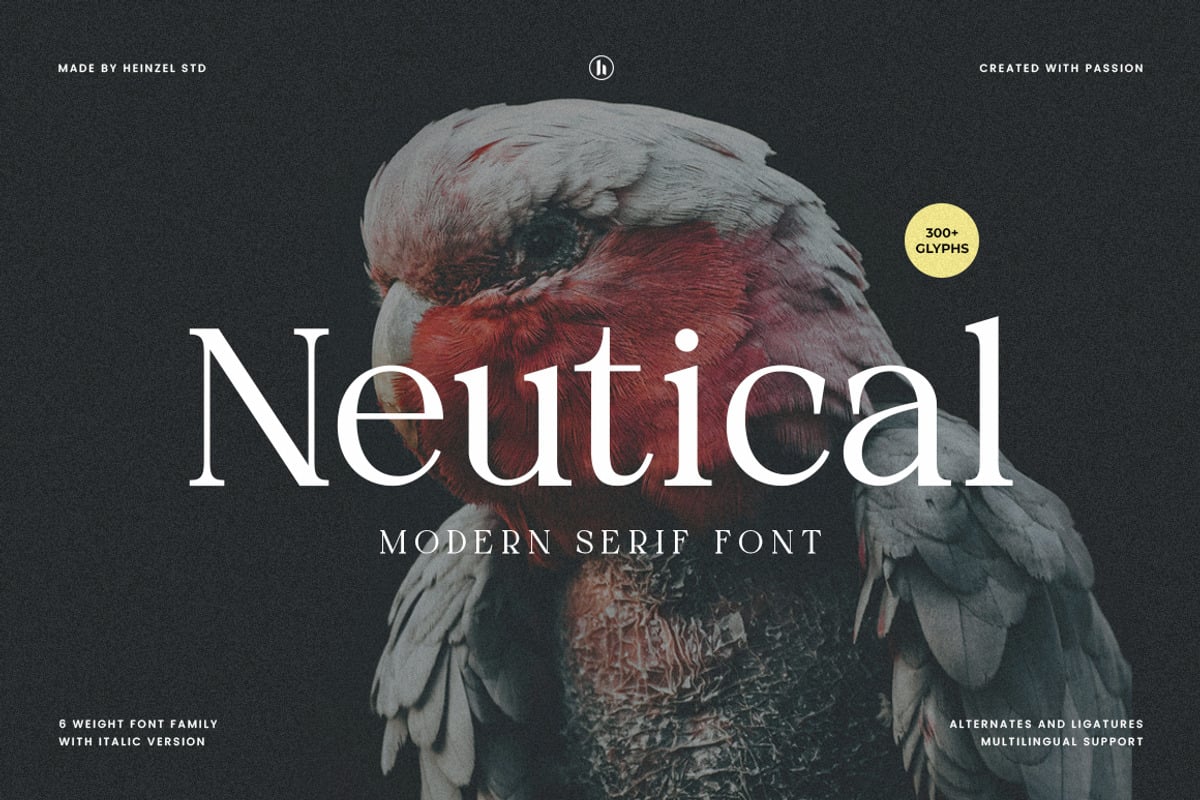
Neutical Serif Font Family (12 Font)
Neutical is the refined serif font family built for luxury branding, editorial design, and high-impact typography.
Sophisticated, versatile, and crafted with precision — Neutical delivers timeless elegance with a contemporary edge. Its clean serifs and balanced proportions make it equally at home in bold display headlines and refined body text, offering smooth readability across every application.
With over 300 glyphs, alternates, and ligatures, Neutical gives designers the flexibility to bring a polished, professional look to branding, packaging, invitations, logos, editorial layouts, and websites.
Neutical Font Family Includes:
- 6 weights: Light, Regular, Semibold, Bold, Extrabold, and Black
- Italic versions included
- Uppercase, lowercase, numerals, and punctuation
- 300+ glyphs with alternates and ligatures
- Full multilingual language support
Whether you're designing for modern luxury brands, high-end editorial spreads, or elegant event collateral, Neutical offers the harmony and flexibility to elevate any creative project.